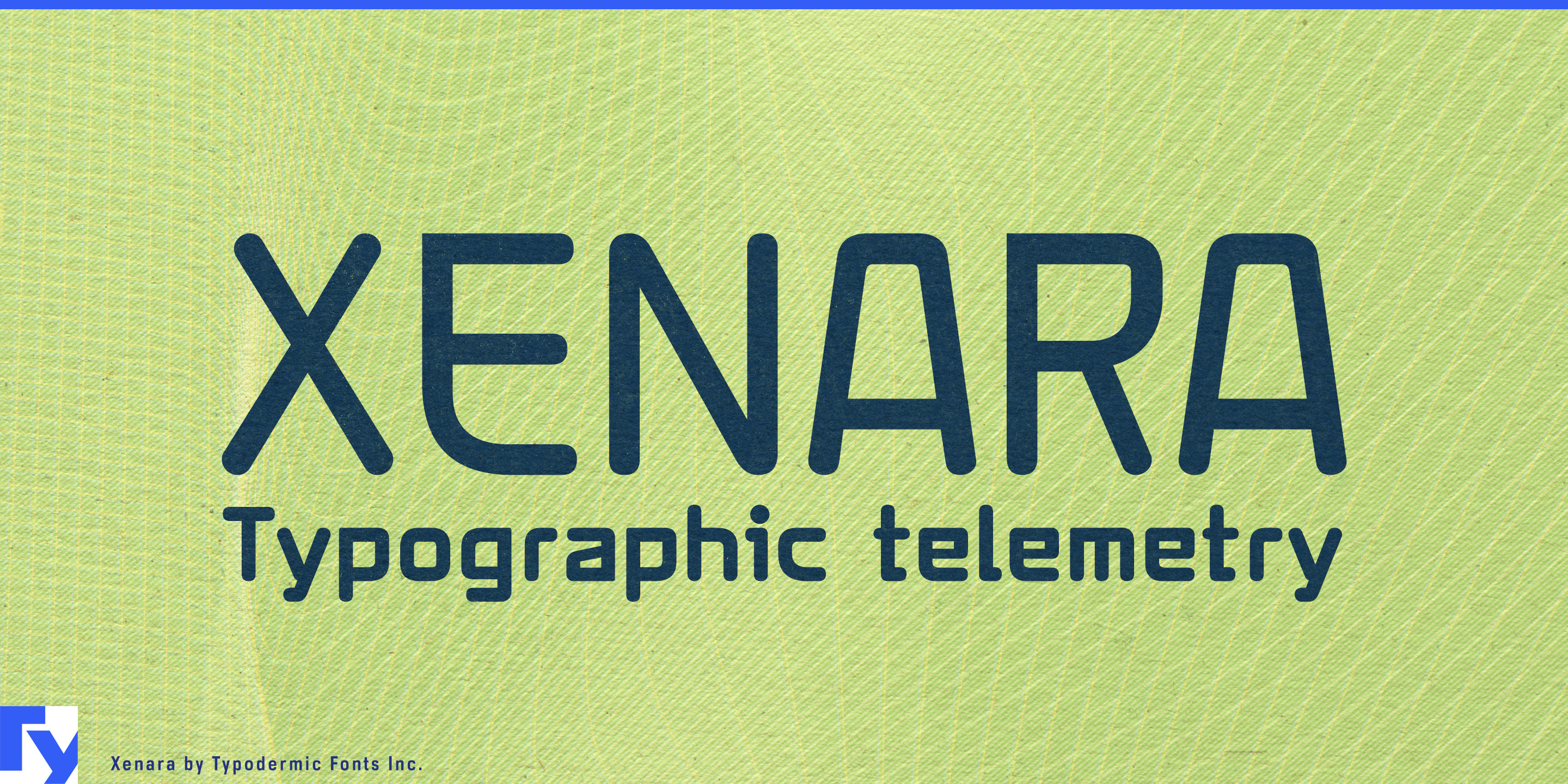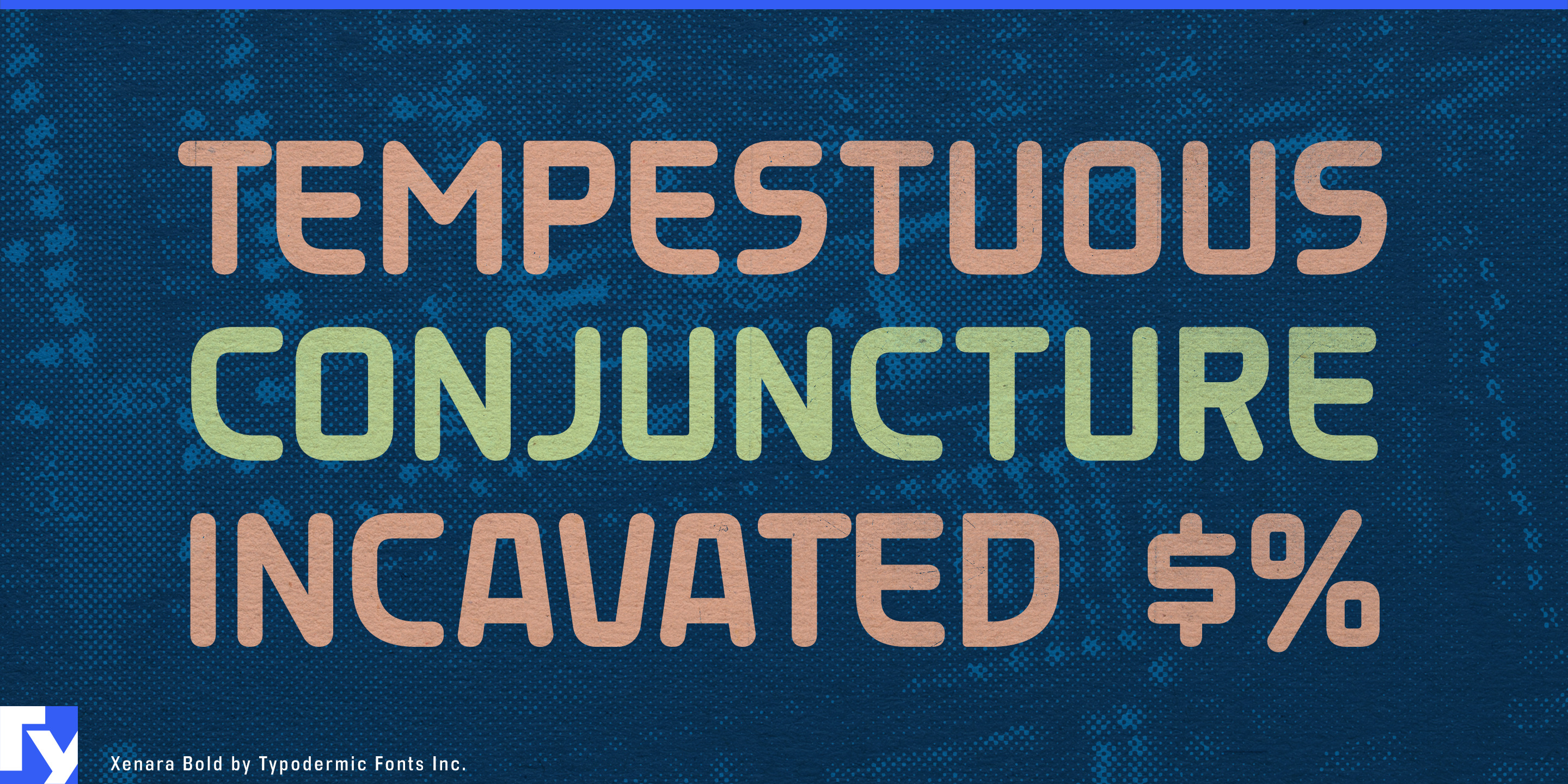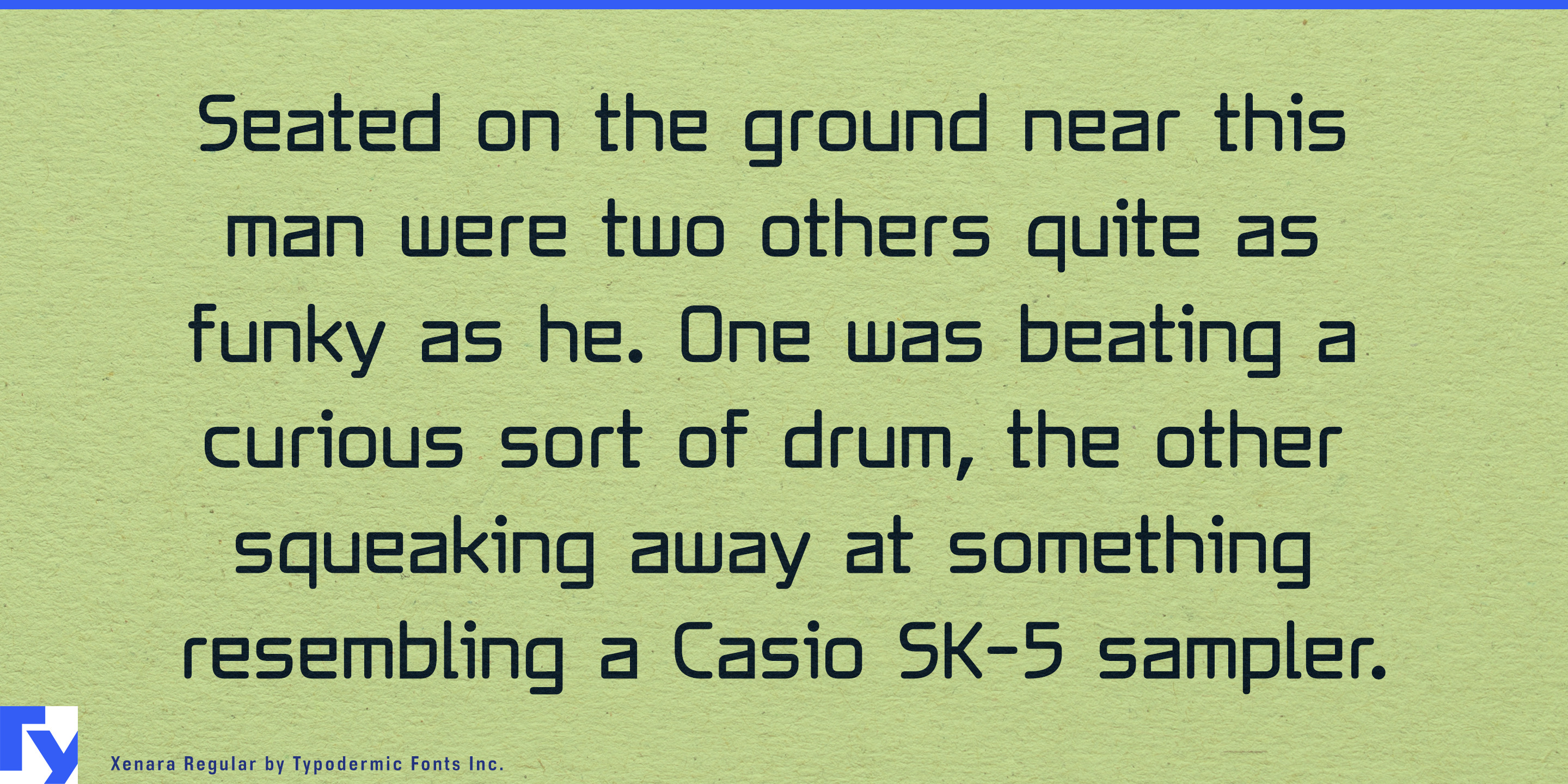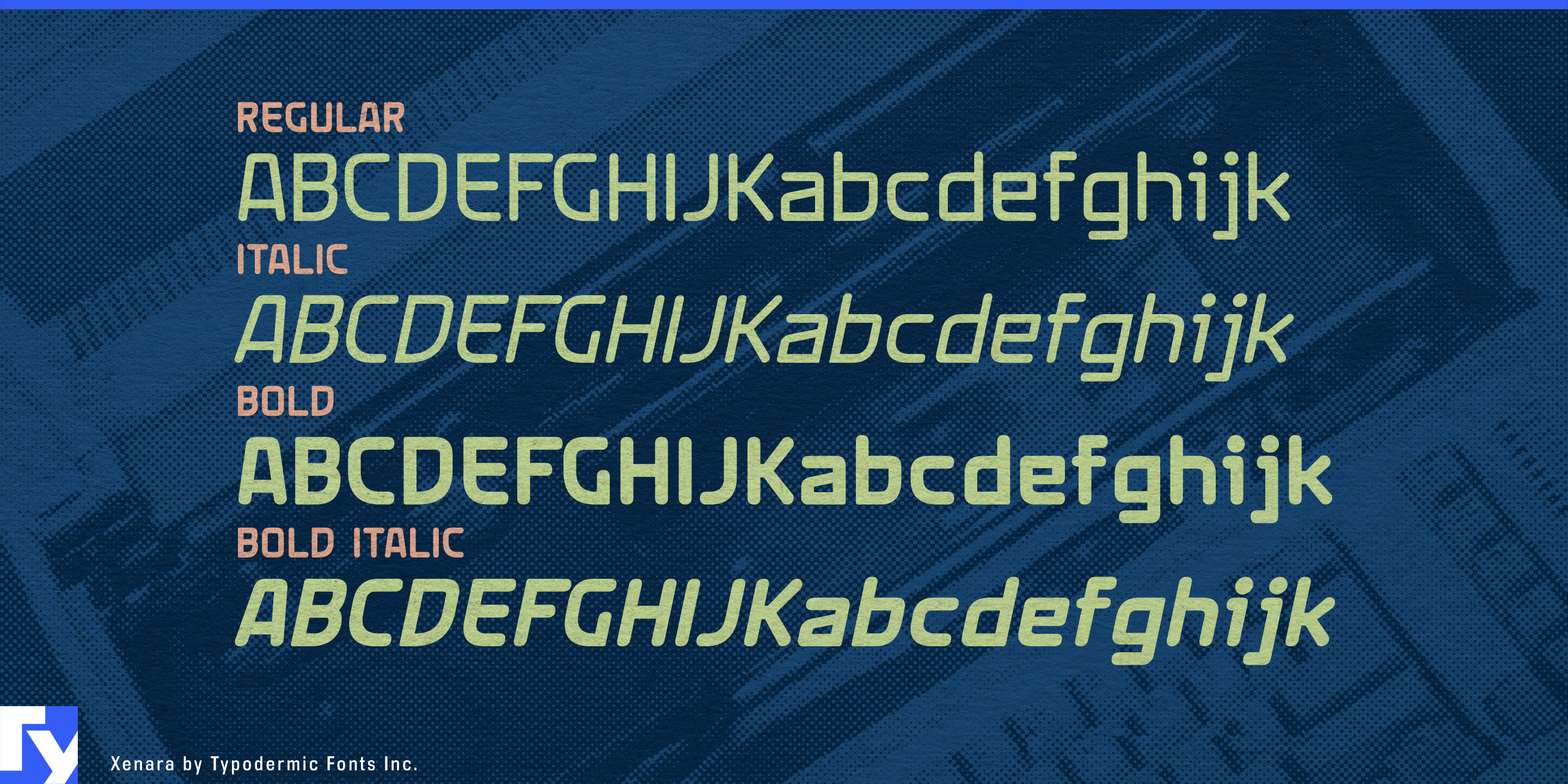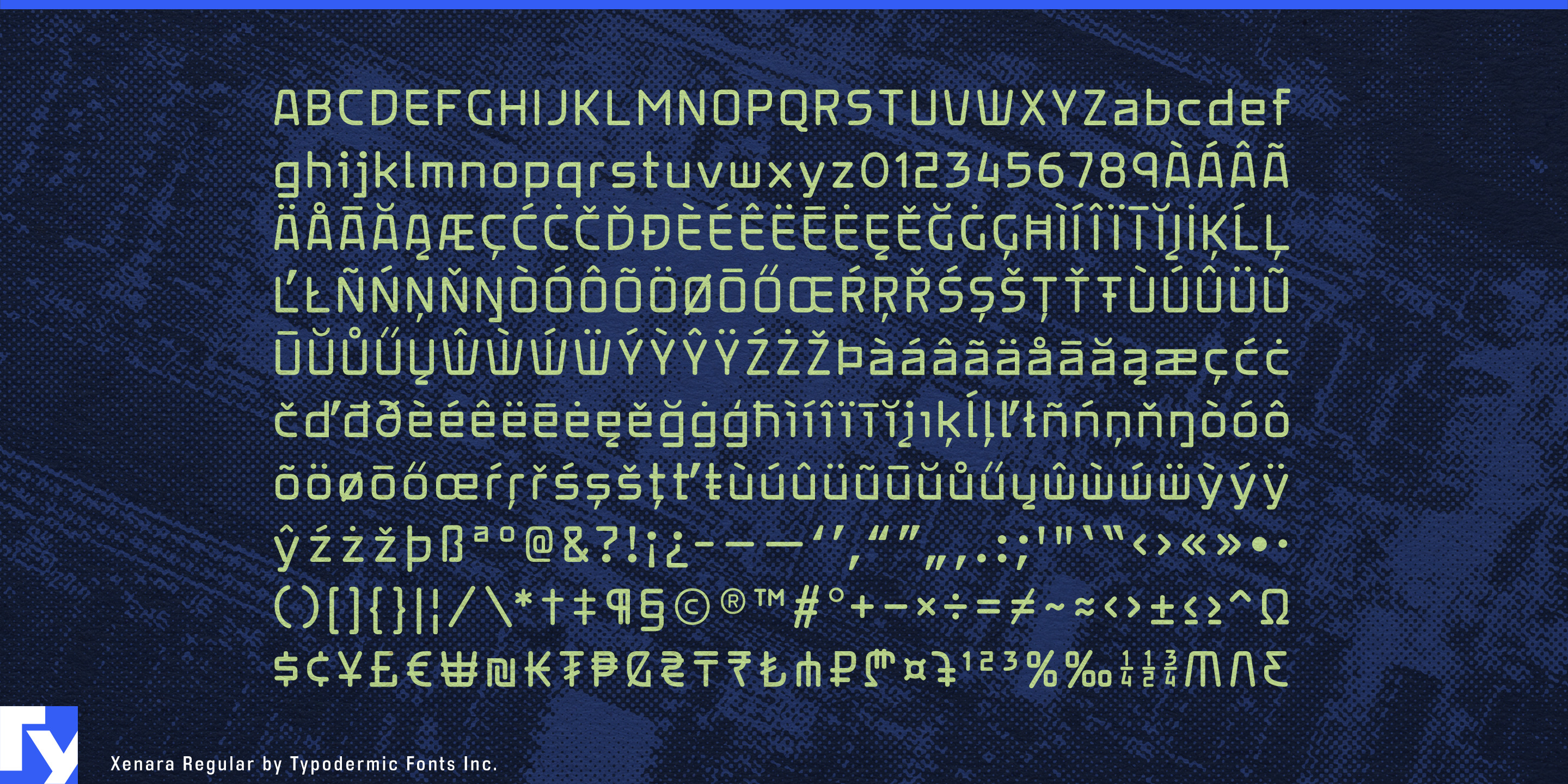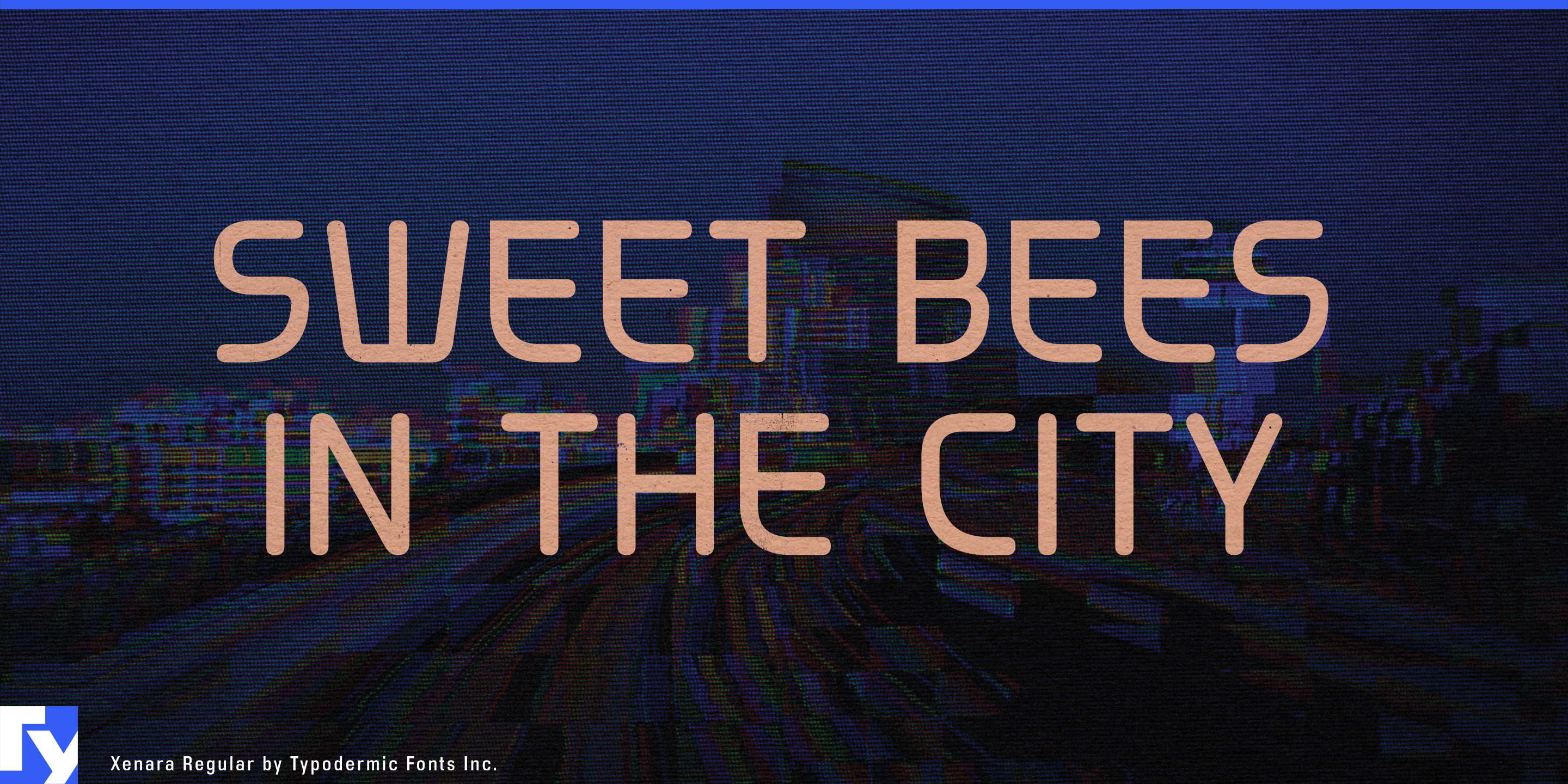
Xenara
Xenara began with an imaginary set of calculator keycaps from an alternate universe. The familiar geometry of molded keys is still there: compact proportions, rounded terminals, squared curves, and strokes that look designed to fit neatly inside a piece of equipment. But the alphabet follows slightly different rules. A barless A, trident M, zigzag E, square S, and other alternate forms can make the same system increasingly unfamiliar without abandoning readable letterforms.
That gives Xenara a natural home around scientific instruments and measurement. Environmental sensors, laboratory equipment, weather instruments, surveying devices, calibration tools, and observatory hardware all provide places for model names, operating sections, measurement categories, control labels, and prominent readings. Xenara does not imitate an LCD or segmented display; it feels more like the lettering molded onto the keys and controls surrounding one.
Science communication extends the same visual world. Planetarium graphics, science-centre exhibits, astronomy programmes, physics demonstrations, STEM kits, classroom experiments, and popular-science publishing can use Xenara when conventional geometric typography feels too anonymous. Its rounded construction keeps the material approachable, while the unusual details suggest apparatus, measurement, and experimentation.
Electronic instruments are another good fit. Synthesizers, laboratory audio equipment, test oscillators, effects units, DIY electronics kits, controllers, and other button-covered hardware share the physical vocabulary that inspired Xenara. Model designations, control groups, mode names, package headings, and short instructions can carry a technical flavour without resorting to pixels, circuitry, or the usual visual shorthand for computers.
The alternate characters open a stranger territory. Used sparingly, Xenara can look like a plausible alphabet for real equipment. Introduce more of the unusual forms and the same typeface starts to suggest fictional laboratories, speculative research institutes, impossible measuring devices, retro-futurist educational films, and scientific disciplines that developed somewhere slightly to the left of our own timeline. The alternates therefore do more than decorate the alphabet; they let a designer control how far the typography departs from ordinary scientific reality.
Xenara can also carry several lines of large copy, giving it more range than a novelty control-panel alphabet. Exhibition introductions, science-book subtitles, experiment headings, equipment descriptions, and short explanatory passages can stay within the same visual system before a quieter text face takes over.
Xenara feels technical without depending on the usual techno vocabulary. It is less about computers than apparatus: keys, controls, readings, experiments, telemetry, and machines built to measure something. It is the kind of alphabet that looks perfectly reasonable on a scientific instrument until you notice that nobody has invented the instrument yet.